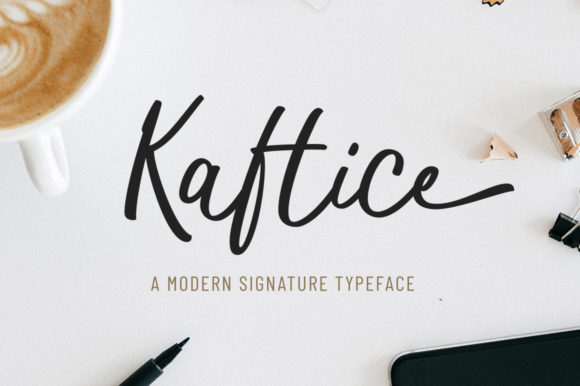
Kaftice Font
Dive into the whimsical world of Kaftice, a captivating script font that will dance across your designs with its enchanting charm. Crafted by the talented minds at Locomotype, this font exudes a youthful spirit and an irresistible touch of sophistication.
Kaftice is more than just a font; it's an invitation to unleash your creativity and make a bold statement. Its playful strokes and charming curves will add a dash of delight to your branding, social media posts, and any project that calls for a touch of whimsy.
Imagine your website headers adorned with Kaftice, beckoning visitors with a warm and welcoming embrace. Picture your social media feed transformed into a vibrant tapestry of words, each letter a work of art. With Kaftice at your fingertips, you'll turn ordinary designs into extraordinary tales.
Its versatility knows no bounds; Kaftice effortlessly adapts to a myriad of design styles, from elegant to edgy and everything in between. Whether you're crafting a rustic wedding invitation, a playful flyer, or a sleek logo, Kaftice will elevate your message with a touch of magic.
Beyond its aesthetic appeal, Kaftice has a soul that whispers to the heart. Its unique style embodies a spirit of fun and adventure, encouraging you to embrace your creativity and make a splash in the world.
So why settle for ordinary fonts when you can immerse yourself in the enchanting realm of Kaftice? Download this captivating script today and embark on a creative journey that will leave an unforgettable mark on your designs. Let Kaftice ignite your imagination and transform your words into captivating works of art.